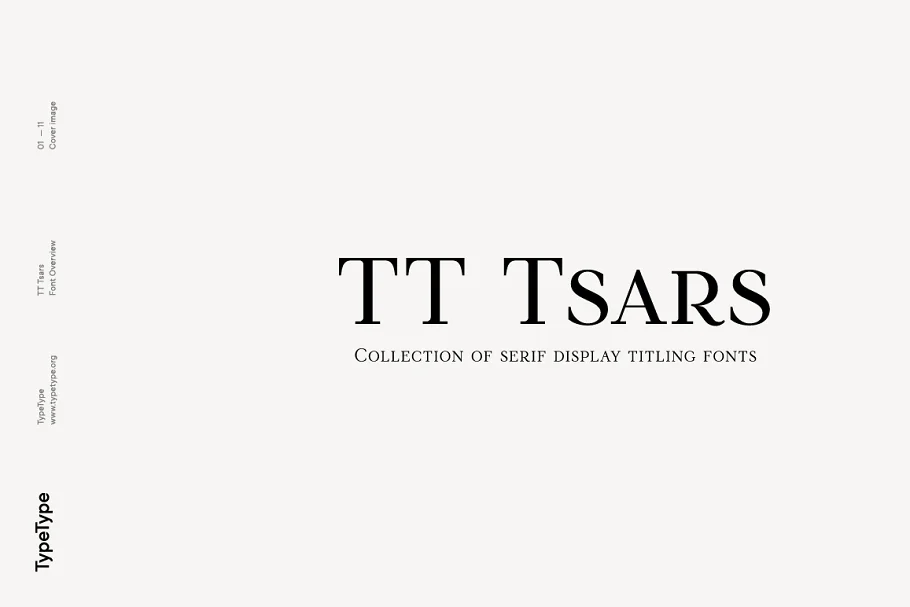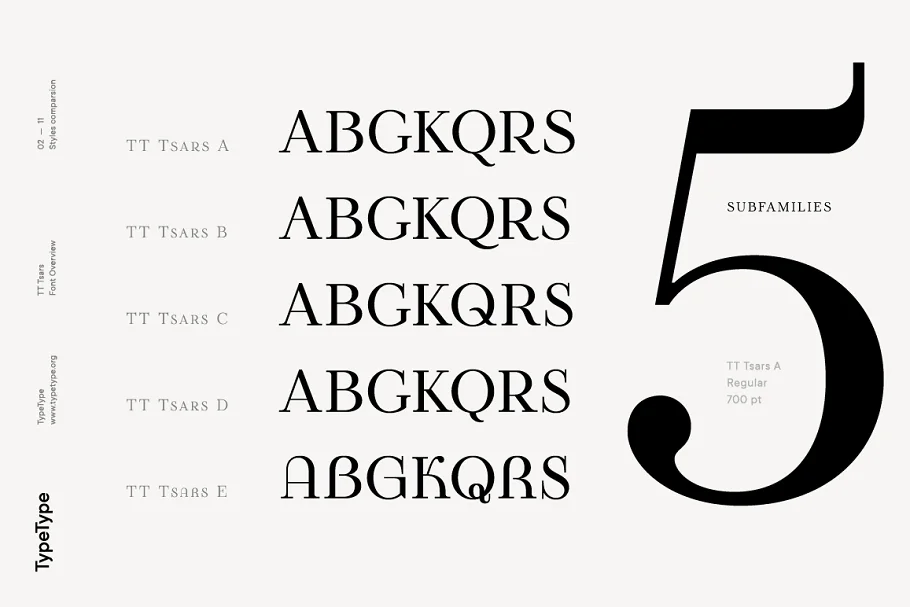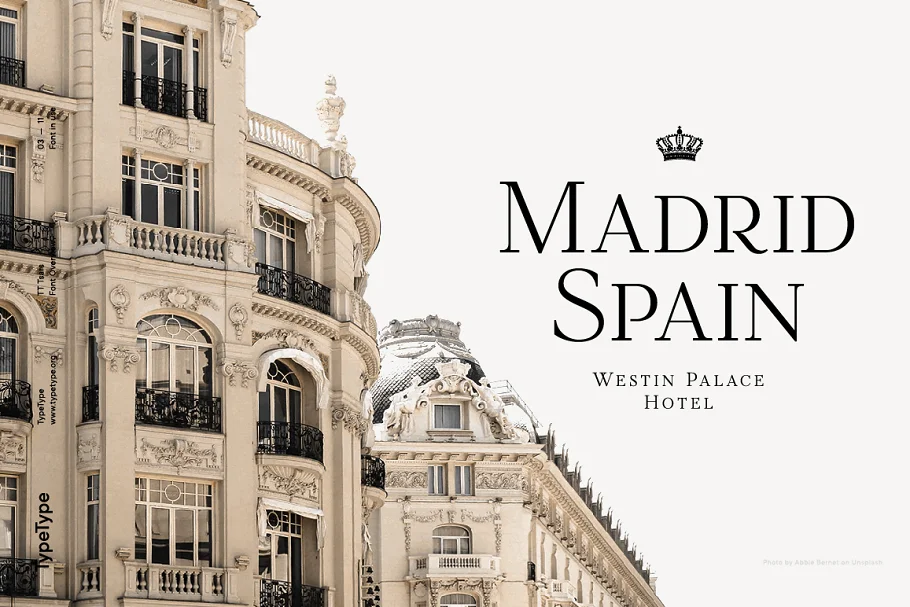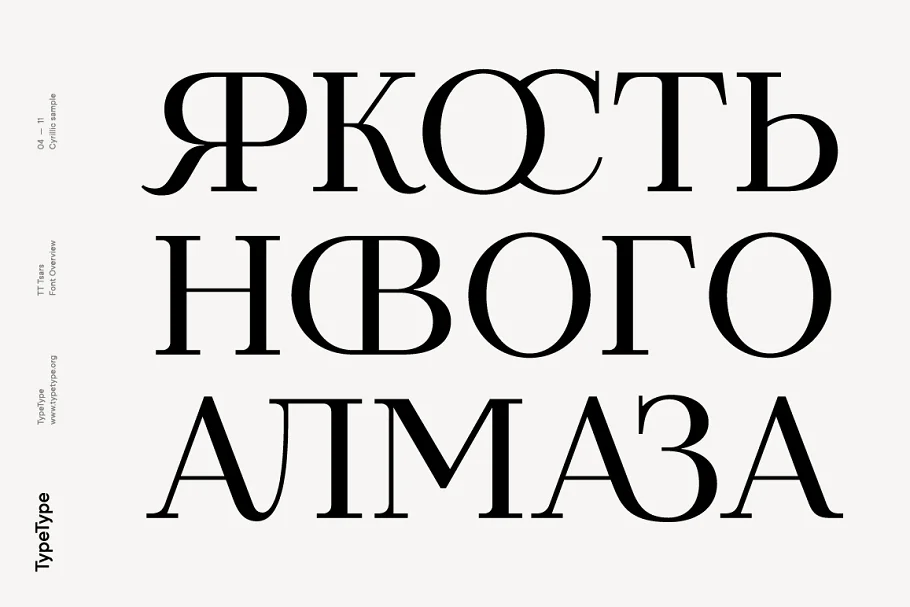
About the TT Tsars Font
The TT Tsars Font family is a collection of serif display titling fonts that are stylized to resemble the fonts of the beginning, the middle, and the end of the XVIII century. TTT Tsars Font project is based on title fonts, that is, the fonts that were used to design book title pages.
The idea for the project TT Tsars Font was born after a small study of the historical development of the Cyrillic type and is also based on Abram Shchitsgal’s book “Russian Civil Type”.
At the TT Tsars Font very beginning of the project, we had developed a basic universal skeleton for the forms of all characters in all subfamilies of the family, and later on, we added styles, visual features, artifacts, and other nuances typical of the given period onto the skeleton.
Yes, TT Tsars Font from the historical accuracy point of view it might be that such an approach is not always justified, but we have achieved our goal and as a result, we have created perfectly combinable serifs that can be used to style an inscription for a certain time period.
The TT Tsars Font family consists of 20 fonts: 5 separate subfamilies, each of which consists of 4 fonts. Each font contains 580 glyphs, except for the TT Tsars E subfamily, in which each font consists of 464 characters.
TT Tsars Font Instead of lowercase characters in the typeface, small capitals are used, which also suggests that the typeface is rather a display than a text one.
In TT Tsars Font you can find a large number of ligatures (for Latin and Cyrillic alphabets), arrows and many useful OpenType features, such as frac, ordn, sinf, sups, numr, dnom, case, onum, tnum, pnum, lnum, salt (ss01), dlig.
TT Tsars Font Time-related Characteristics of the subfamilies are distributed as follows:
- TT Tsars A—the beginning of the 18th century (Latin and Cyrillic)
- TT Tsars B—the beginning of the 18th century (Latin and Cyrillic)
- TT Tsars C—the middle of the 18th century (Latin and Cyrillic)
- TT Tsars D—the end of the 18th century (Latin and Cyrillic)
- TT Tsars E—conditionally the beginning of the 18th century (only Latin)
TT Tsars Font A and TT Tsars B families (both at the beginning of the 18th century) have different starting points: for TT Tsars A it is Latin, for TT Tsars B it is Cyrillic.
The development of the TT Tsars Font A family began in Latin, the font is based on the royal serif Romain du Roi.
Cyrillic alphabet is harmoniously matched to Latin. The development of the TT Tsars Font B family began in Cyrillic, which is based on a Russian civil type.
Characteristic elements are the curved one-sided serifs of triangular characters (A, X, Y), drops appear in the letter Ж, the middle strokes В and P are adjacent to the main stroke. Latin was drawn to pair with Cyrillic.
It is still based on the royal serif, but somewhat changed: the letters B and P are closed, and the upper bar of the letter A rose. This was done for the visual combination of Cyrillic and Latin and at the same time to make a distinction between TT Tsars Font A and TT Tsars B.
TT Tsars C is now the middle of the 18th century. Cyrillic alphabet itself did not stand still and evolved, and by the middle of the 18th century, its forms have changed and become to look the way they are shown in this font family. Latin forms are following the Cyrillic.
The figures are also slightly modified and adapted to the type design. In TT Tsars C, Cyrillic and Latin characters are created in parallel. A distinctive feature of the Cyrillic alphabet in TT Tsars C is the residual influence of the flat pen.
This is noticeable in TT Tsars Font such signs as З, Ж, K. The shape of the letters Р, Ц, Щ, Э is very characteristic of the period.
In the Latin alphabet, a characteristic leg appears at the letter R. For both languages, there is a typical C characterized by an upper serif and the appearance of large, even somewhat bolding serifs on horizontals (T, E, Г, L).
TT Tsars D is already the end of the 18th century when with the development of printing, the forms of some Cyrillic characters had changed and turned into new skeletons of letters that we transposed into Latin.
The figures were also stylized. In this font, both Cyrillic and Latin are stylistically executed with different serifs and are thus logically separated. The end of the century is characterized by the reduction of decorative elements.
Straight, blueprint-like legs of the letters Я, R, K, Ж. Serifs are very pronounced and triangular. E and Э are one-sided on the middle horizontal line. A very characteristic C with two serifs appears in the Latin alphabet.
TT Tsars Font E is a steampunk fantasy typeface, its theme is a Latinized Russian Сivil type (also referred to as Grazhdansky type which emerged after Peter the Great’s language reform), which includes only the Latin alphabet.
There is no historical analog to this typeface, it is exclusively our reflections on the topic of what would have happened if the civil font had developed further and received a Latin counterpart.